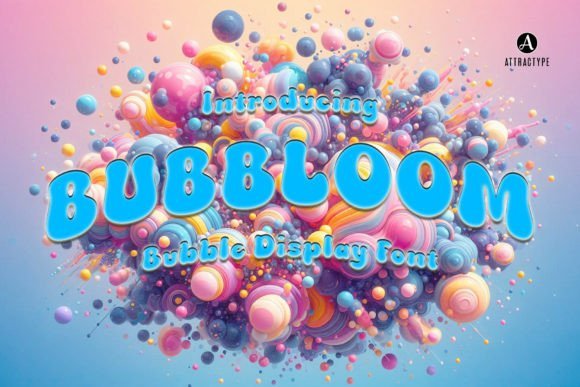
The Perfect Pop of Personality: Bubbloom Font
Have you ever stumbled upon a font that makes you feel like a kid in a candy store? For designers, this moment is pure magic. It’s the instant when a font’s unique charm sparks an idea, and creativity flows freely. That’s exactly what happens when you encounter the delightful Bubbloom Font.
Bubbloom Font is a display font that embodies the essence of fun and playfulness. Its bubble style design makes it perfect for adding a touch of whimsy to various design projects. From simple title text to book cover titles, advertisements, and social media posts, Bubbloom Font is the perfect companion for designers who want to inject personality into their work.
What makes Bubbloom Font truly valuable is its versatility and ease of use. Whether you’re a seasoned designer or just starting out, this font is sure to become a favorite in your toolkit.
Bubbloom Font Key Features
- Font Family: Bubbloom Font is a sans-serif typeface designed for digital and print media.
- Unique Characteristics: Bubbloom Font features a unique blend of rounded and geometric shapes, creating a friendly and approachable feel.
- Font Weight and Style: Available in 5 font weights (Light, Regular, Medium, Bold, Black) and 2 font styles (Regular, Italic), offering flexibility for various design needs.
Bubbloom Font Review
As a designer, I had the chance to work with Bubbloom Font, and I must say it’s an interesting addition to any design project. ✨ One of the things I like about Bubbloom is its unique, playful feel. The font is perfect for creating a whimsical atmosphere, making it ideal for children’s books, advertisements, or any other project that requires a touch of fun.
Another great aspect of Bubbloom is its legibility. ✨ The font is clear and easy to read, even at smaller sizes, which makes it suitable for body text as well as headings. The font also comes in a range of weights and styles, allowing designers to experiment with different looks and feels.
- ⚠️ The font may not be suitable for formal or professional projects, as its playful nature can come across as unprofessional.
- ⚠️ The font may be challenging to pair with other fonts, as its unique style can be overpowering.
- ⚠️ Some users may find the font too bubbly or childish, which can be a limitation in certain design contexts.
Overall, Bubbloom Font is a great choice for designers who want to add some personality to their projects. While it may have some limitations, its unique feel and legibility make it a valuable addition to any design toolbox.
Getting the Most Out of Bubbloom Font
To get the most out of Bubbloom Font, try the following tips:
– Use Bubbloom Font for headings and titles to add a touch of elegance and sophistication.
– Pair Bubbloom Font with other playful fonts to create a unique and eye-catching design.
– Use Bubbloom Font for social media graphics and advertising materials to add a touch of whimsy and fun.
Bubbloom Font is commonly used for:
– Baby shower invitations and decorations
– Social media graphics and advertising materials
– Event invitations and promotional materials